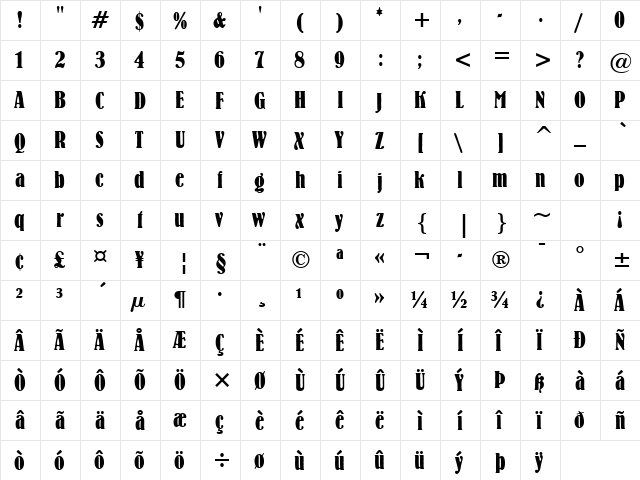
Bernhard BdCn BT Regular Font Preview
Bernhard BdCn BT Regular
Design Context for Bernhard BdCn BT Typeface
Bernhard BdCn BT offers clean, dependable letterforms without strong stylistic allegiance, making it a practical choice for designers who need flexibility.